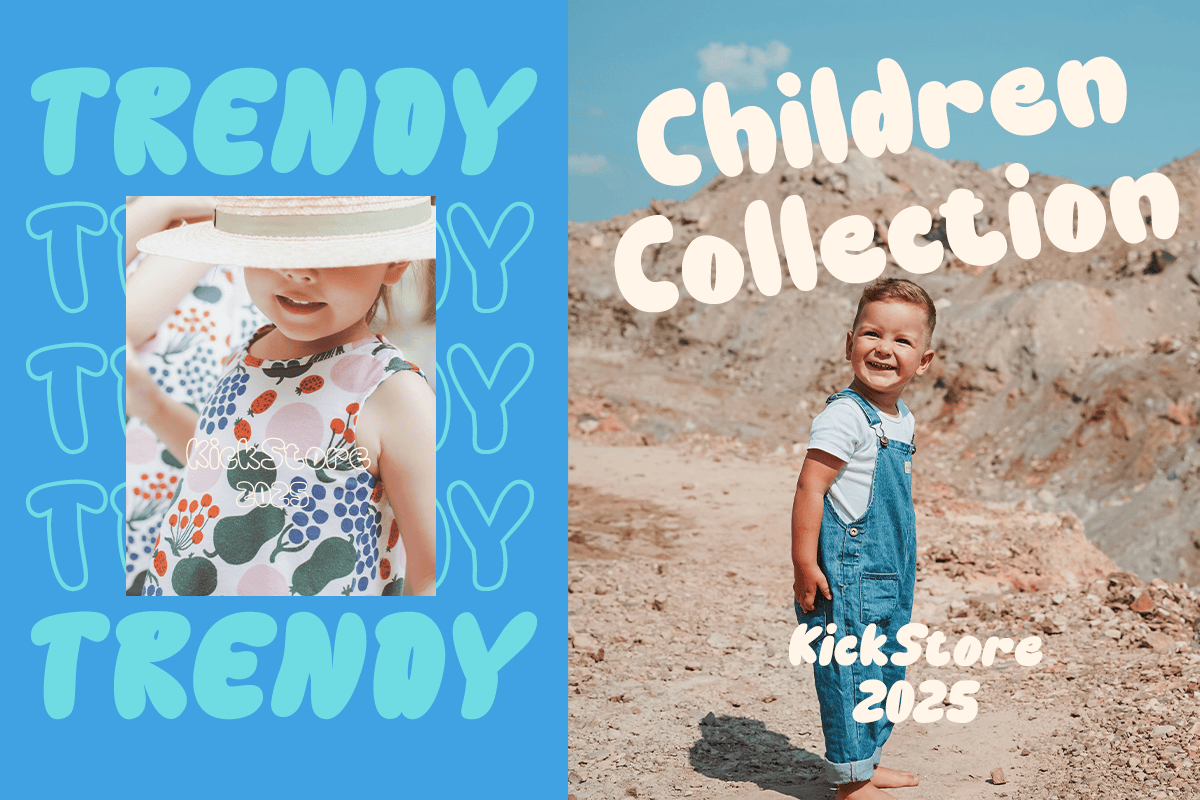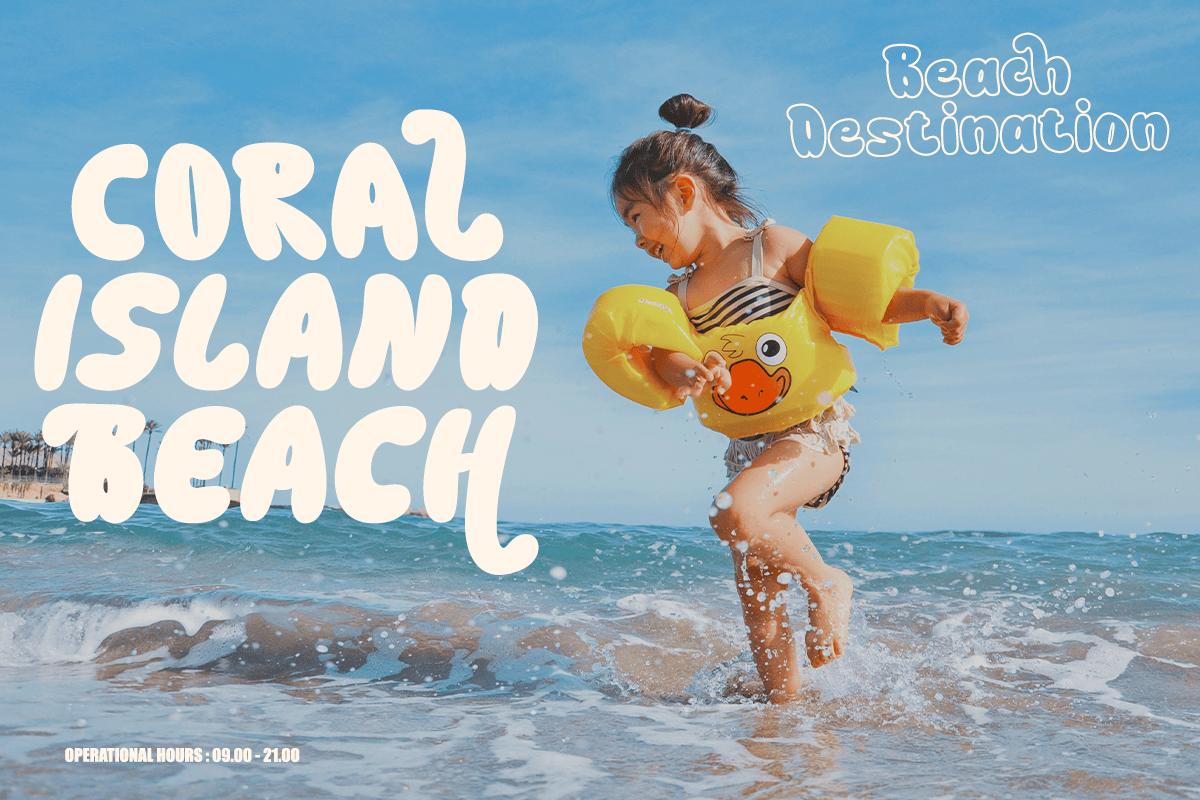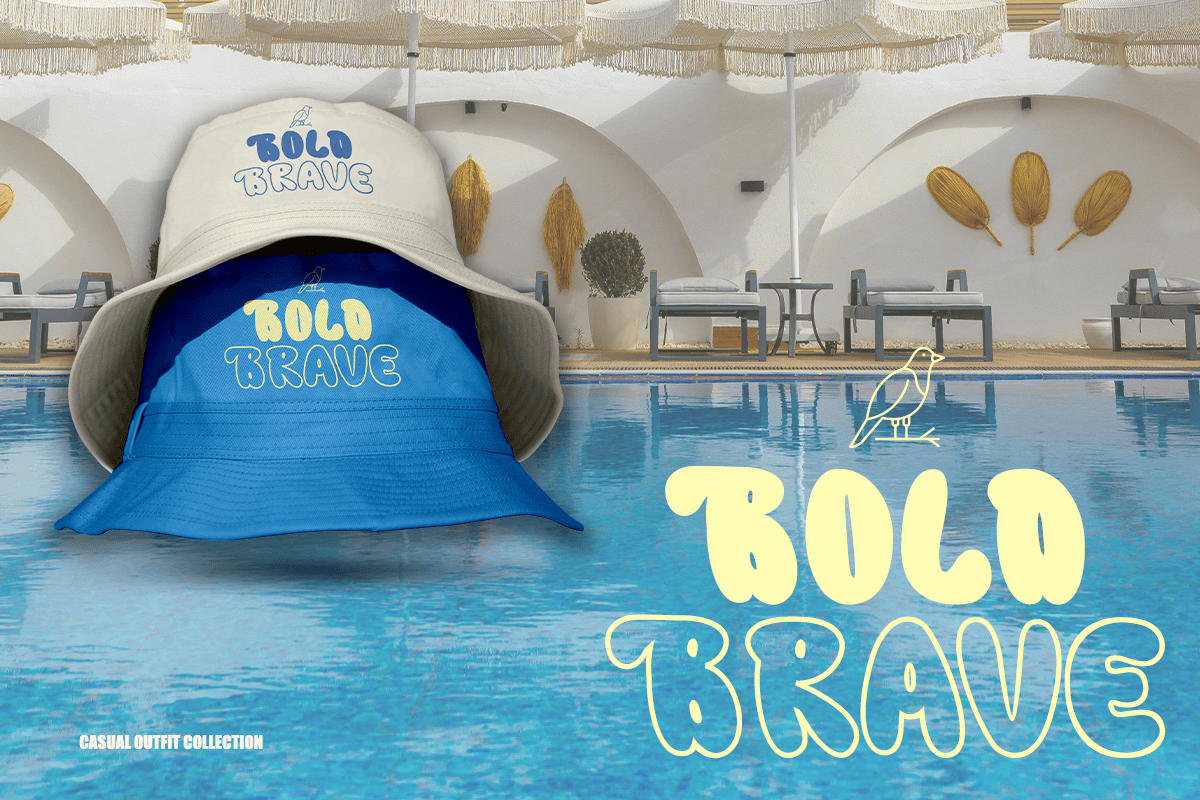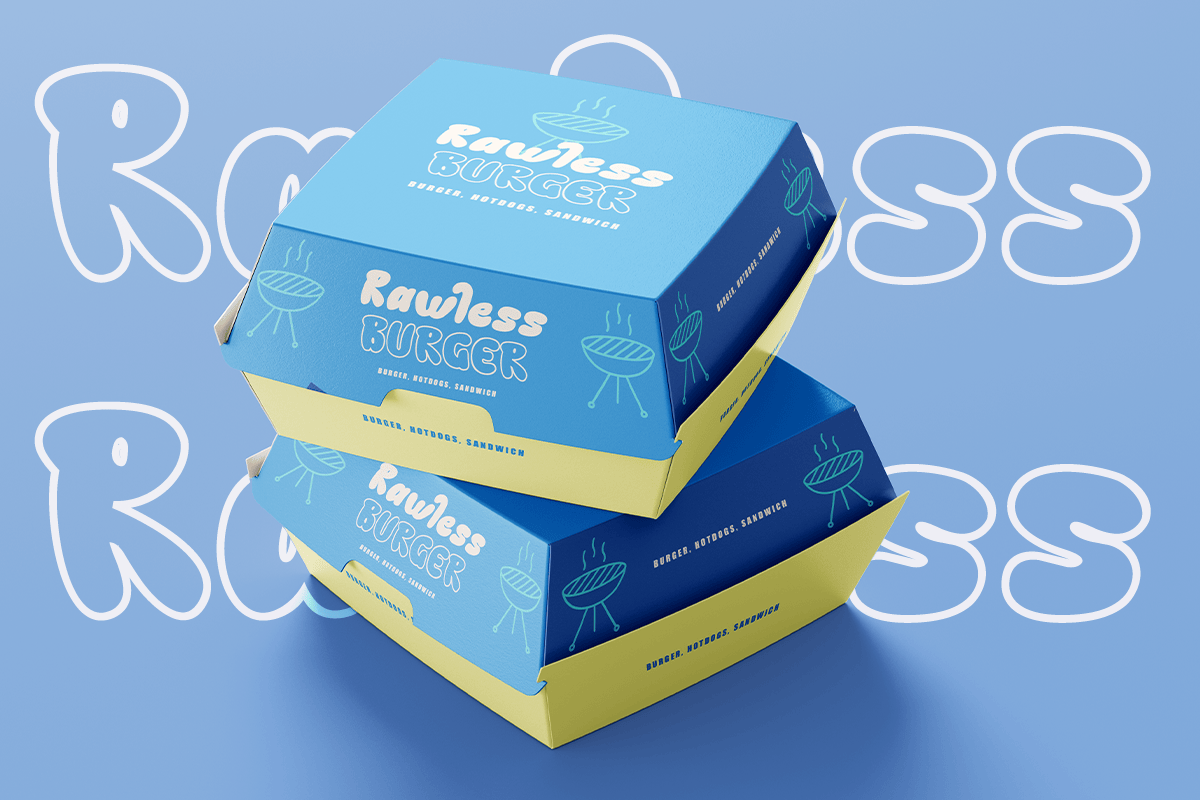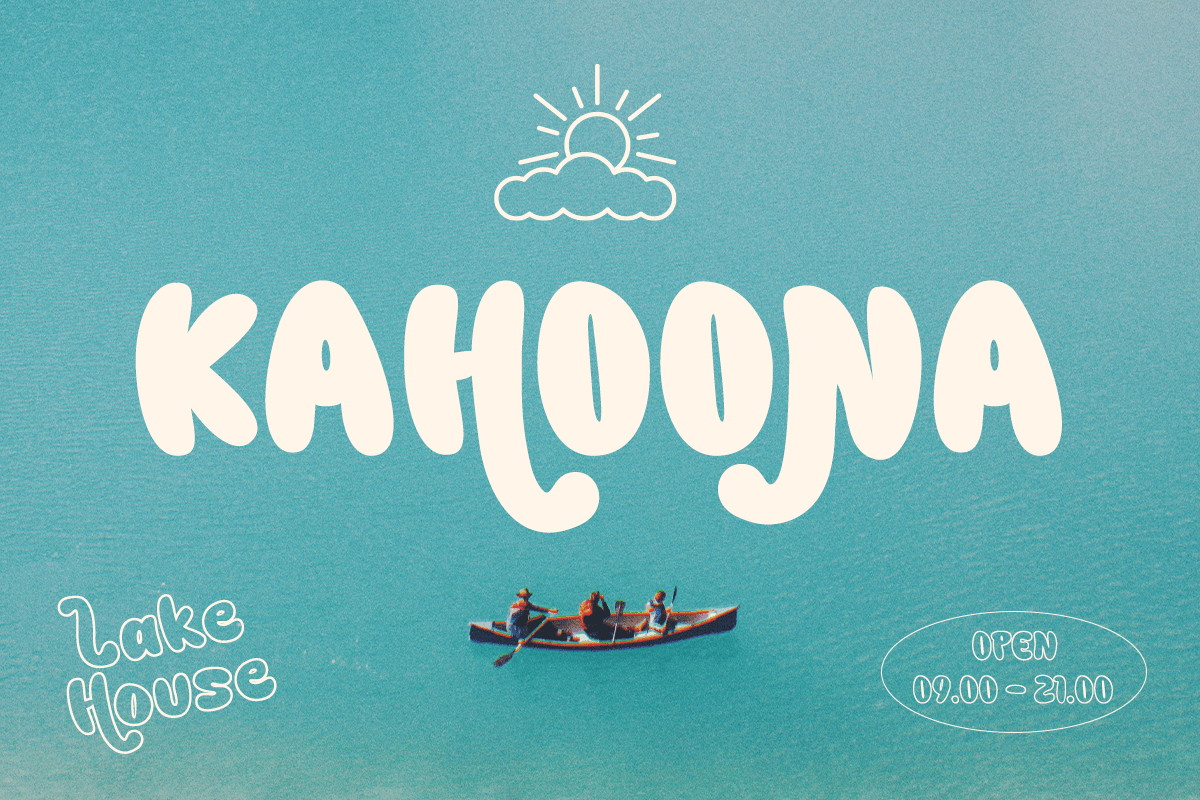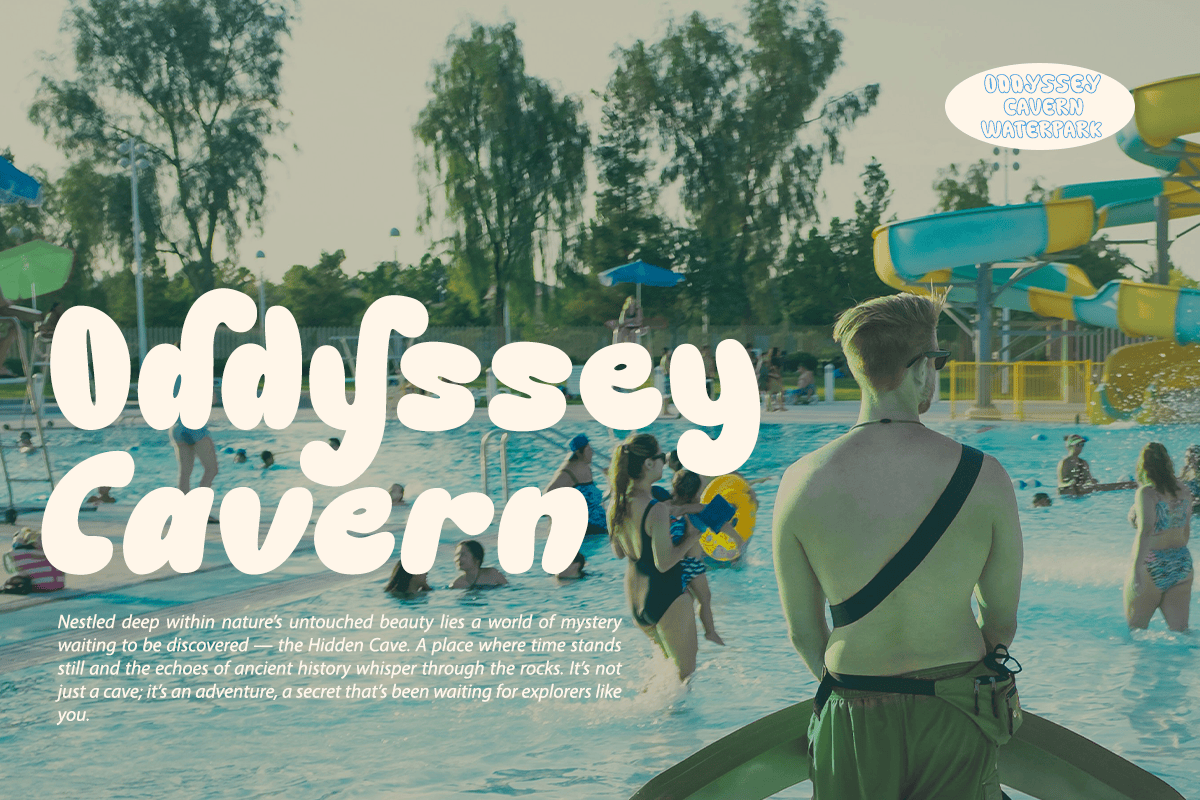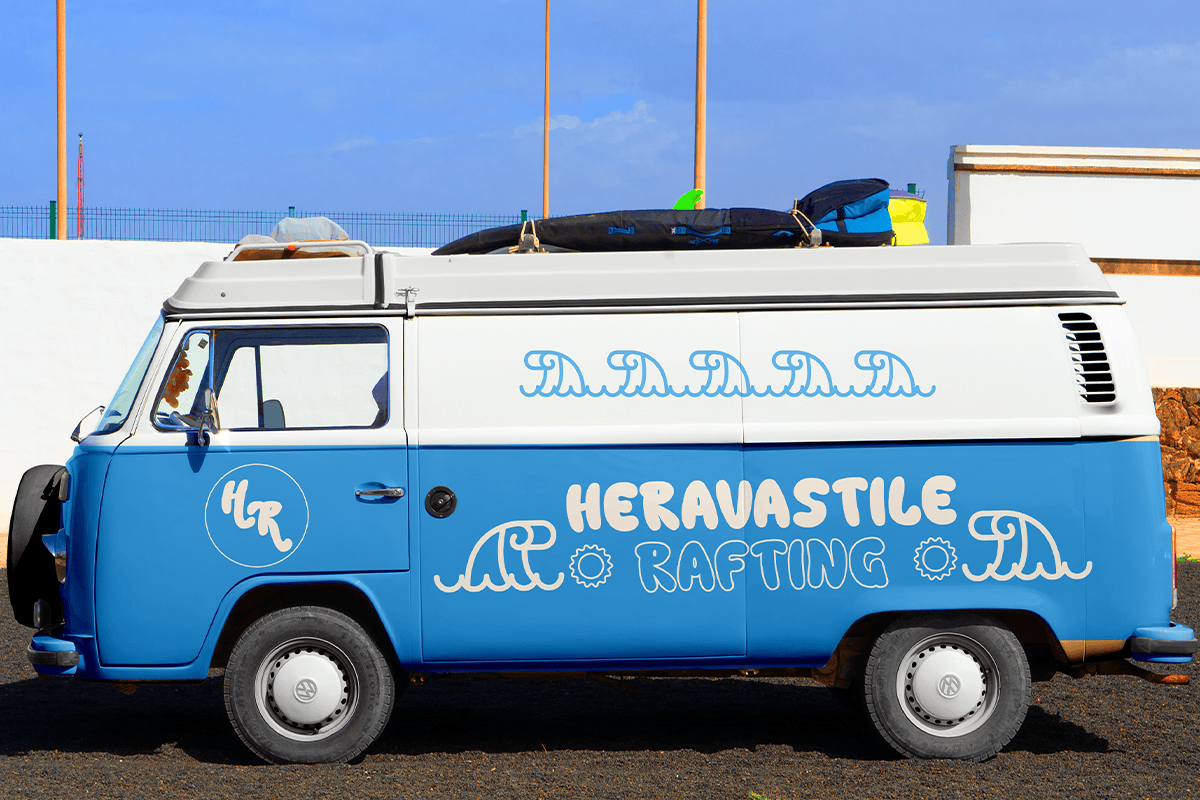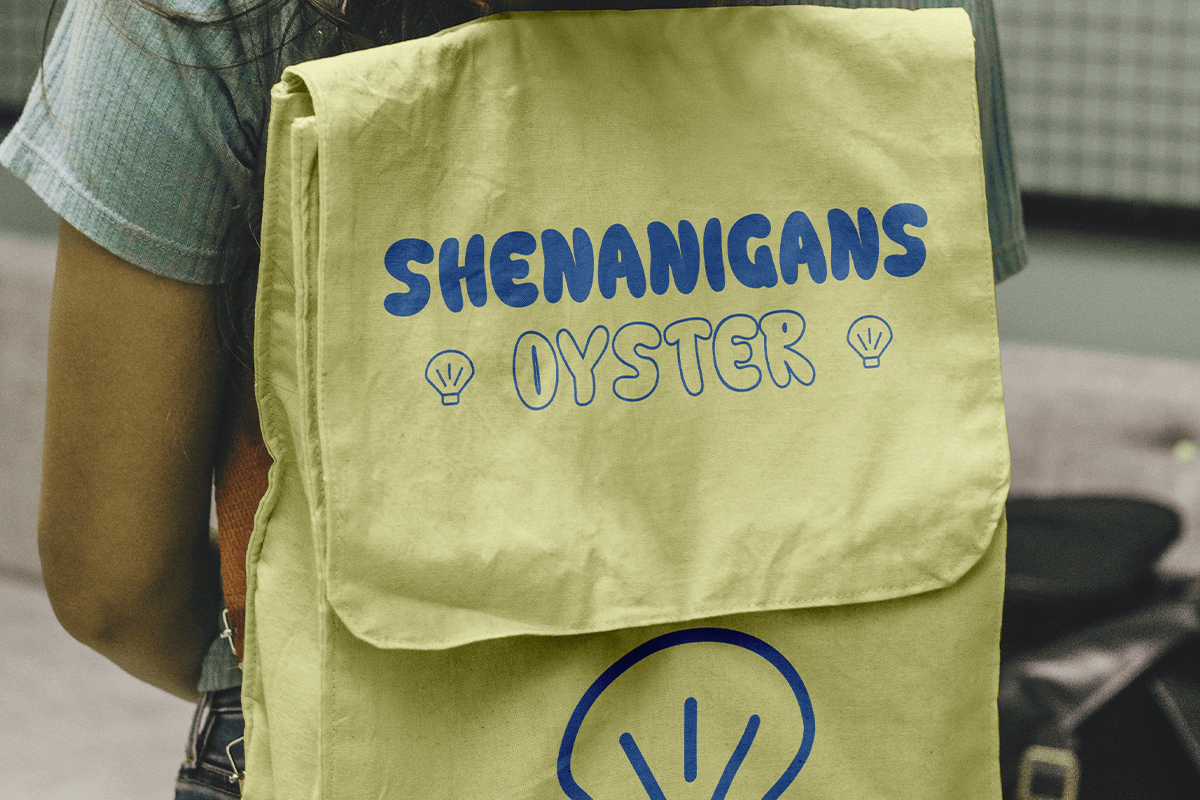
Gummy Child – Bubble Display Font
Gummy Child is a cute bubble display font filled with cheerful personality and playful charm. Featuring soft rounded letterforms, hand-drawn aesthetics, and adorable alternates, Gummy Child creates warm, friendly typography that instantly brings smiles to every design. Its fun and approachable style makes it perfect for projects that celebrate creativity, imagination, and joyful storytelling.
Ideal for children’s brands, toy packaging, baby products, schools, educational materials, birthday invitations, books, cafés, snacks, ice cream shops, apparel, stickers, posters, social media, YouTube thumbnails, games, merchandise, branding, and playful marketing campaigns, Gummy Child includes uppercase, lowercase, numerals, punctuation, multilingual support, and alternate characters, giving designers endless creative possibilities.
Whether you’re designing kids’ packaging, playful logos, classroom materials, family event invitations, colorful branding, or fun promotional graphics, Gummy Child delivers a delightful visual experience that feels both modern and memorable. Its bubbly forms and friendly personality make it a perfect display font for print and digital projects aimed at children and family audiences.
– Stylistic alternates
– Uppercase, Lowercase & Ligatures